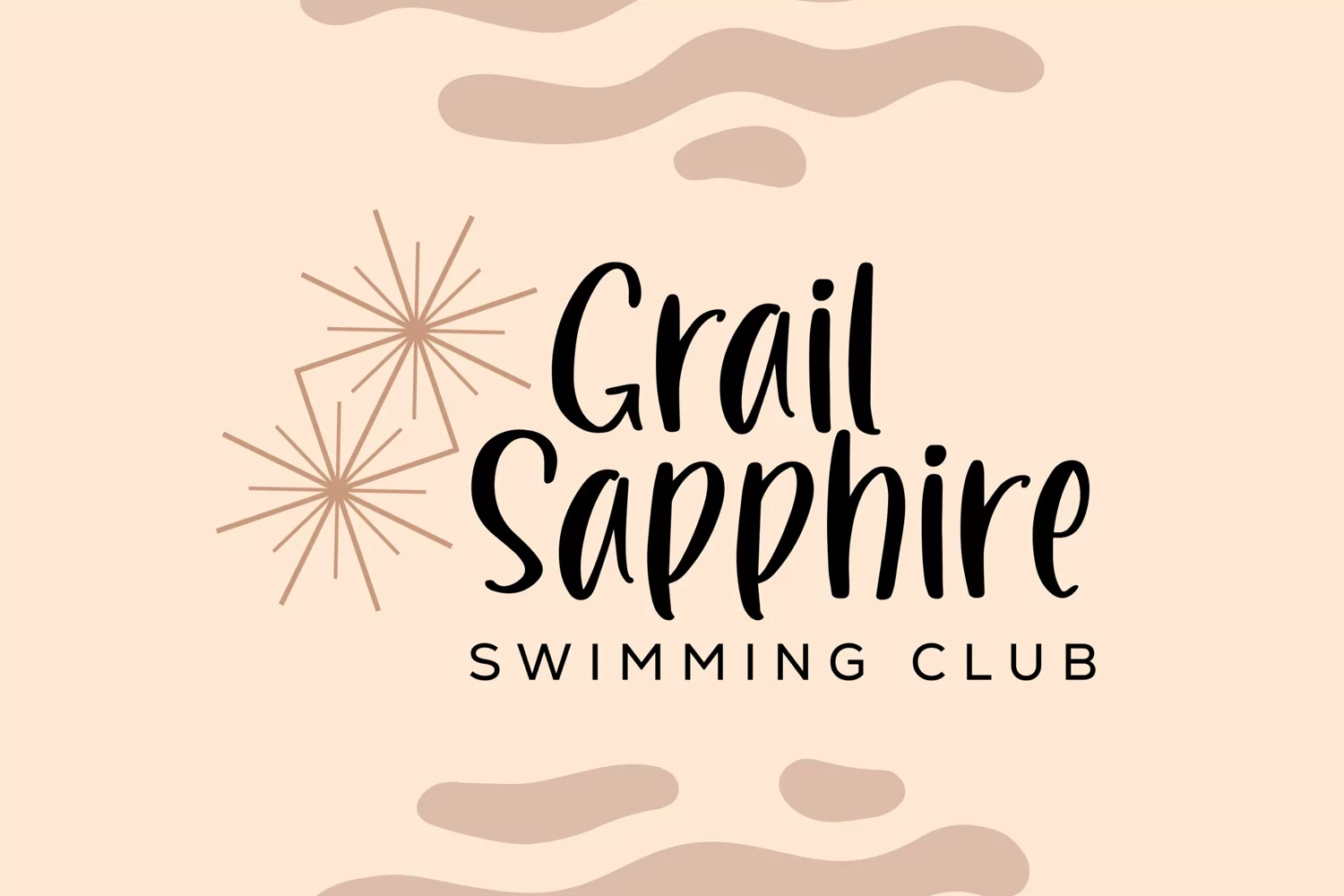
Another Miracle - Simple Handrawn Font that contain lowercase, uppercase, symbol, and also support multi language. There’s a lot ligatures in this font. This Font also comes with ligatures, alternates and many more. this font suitable for fashion, branding, catalog and other design what you want.